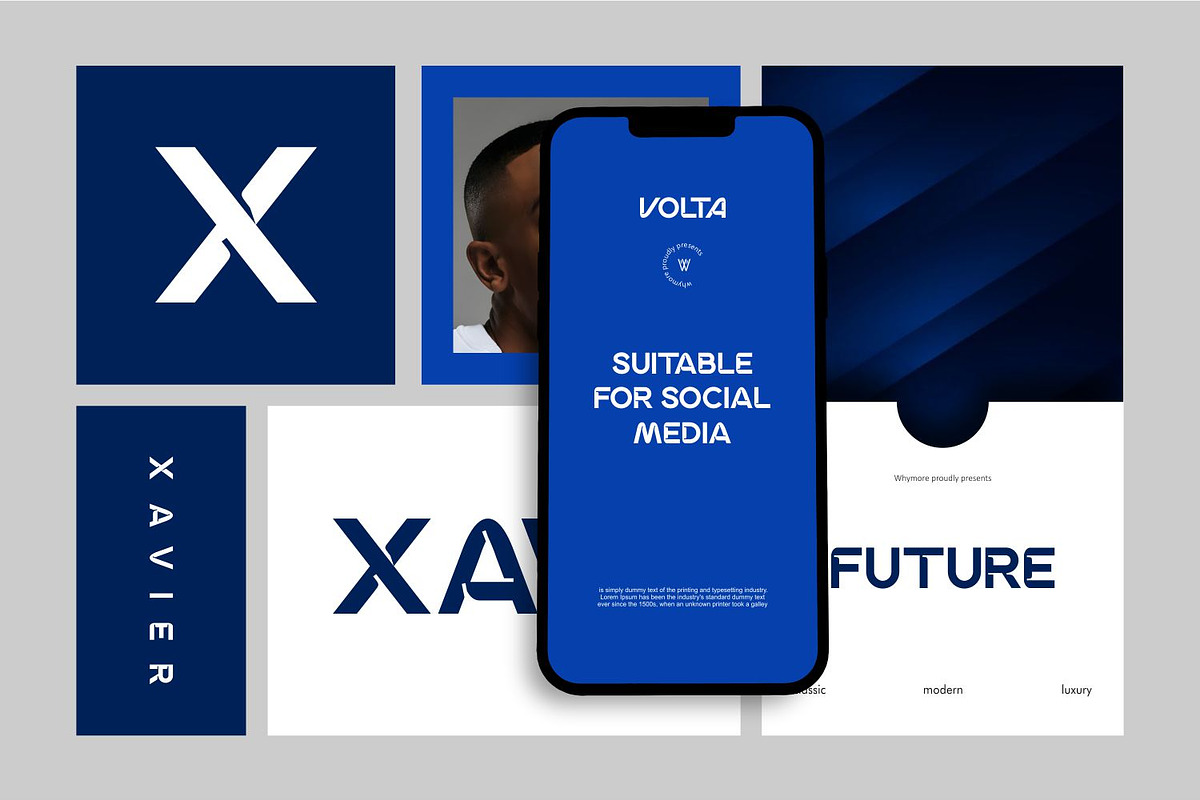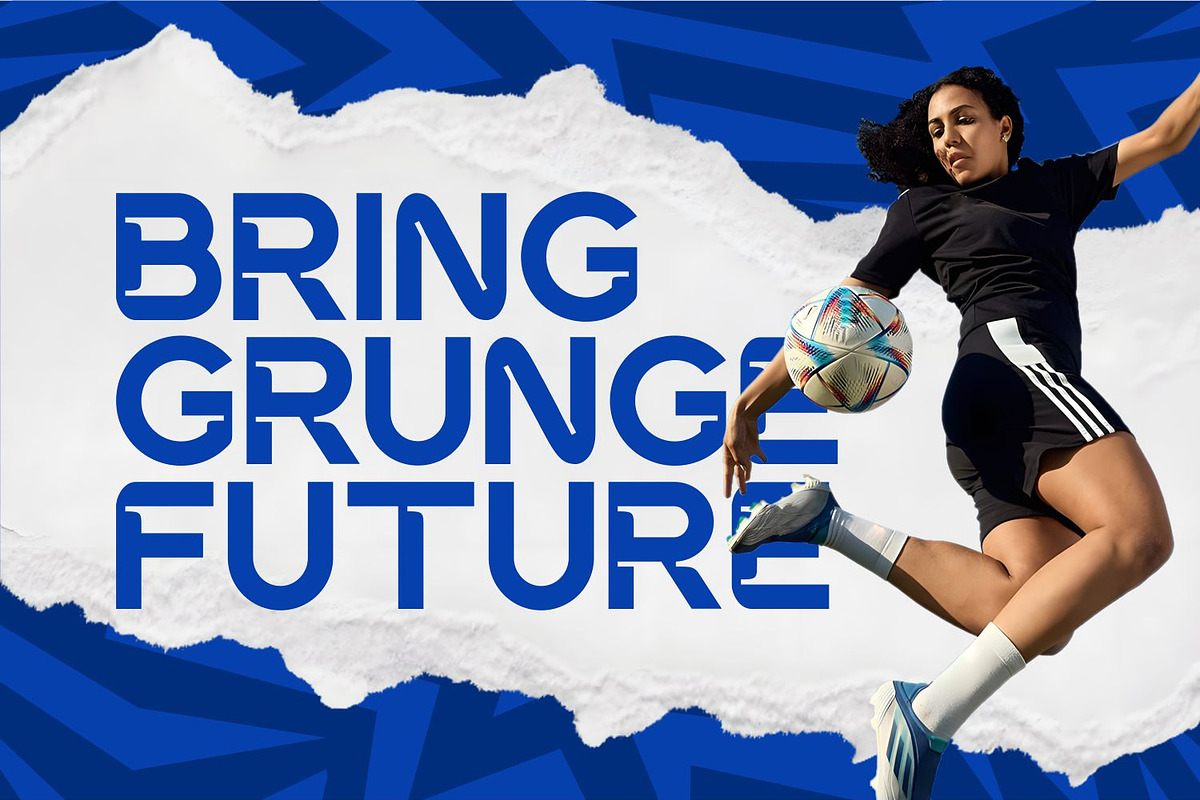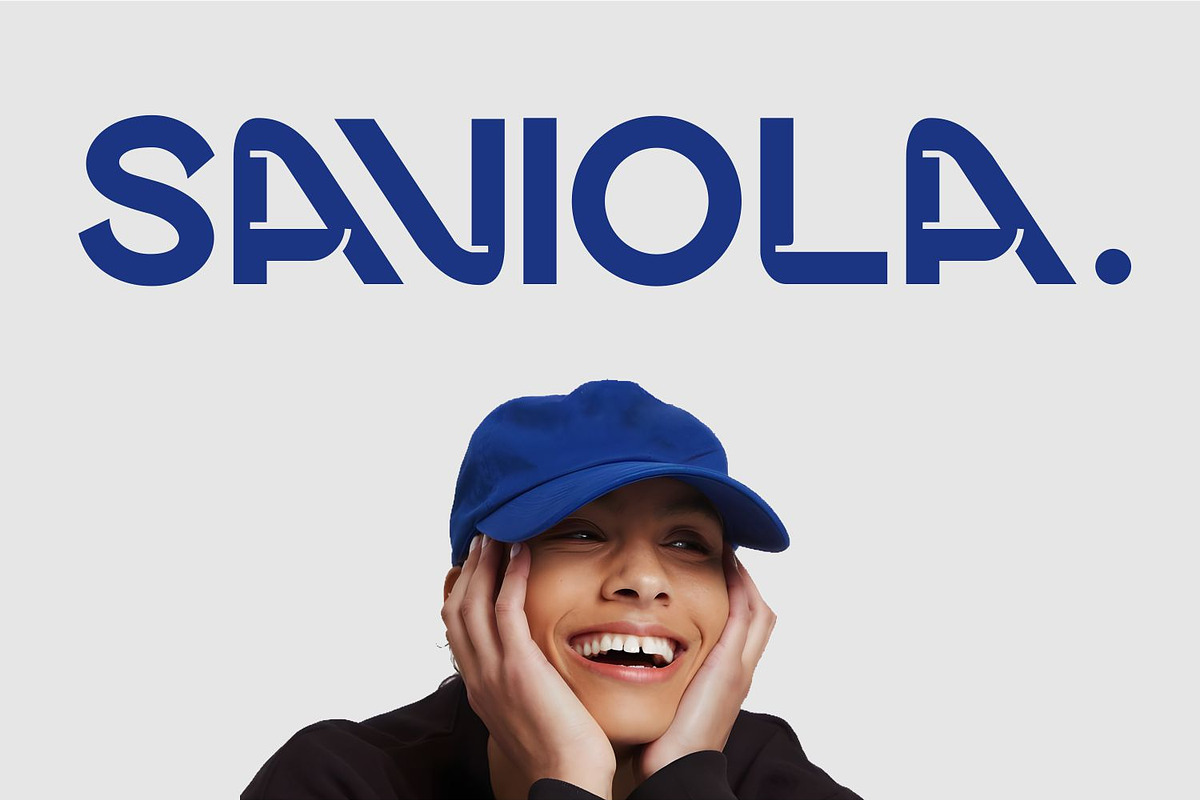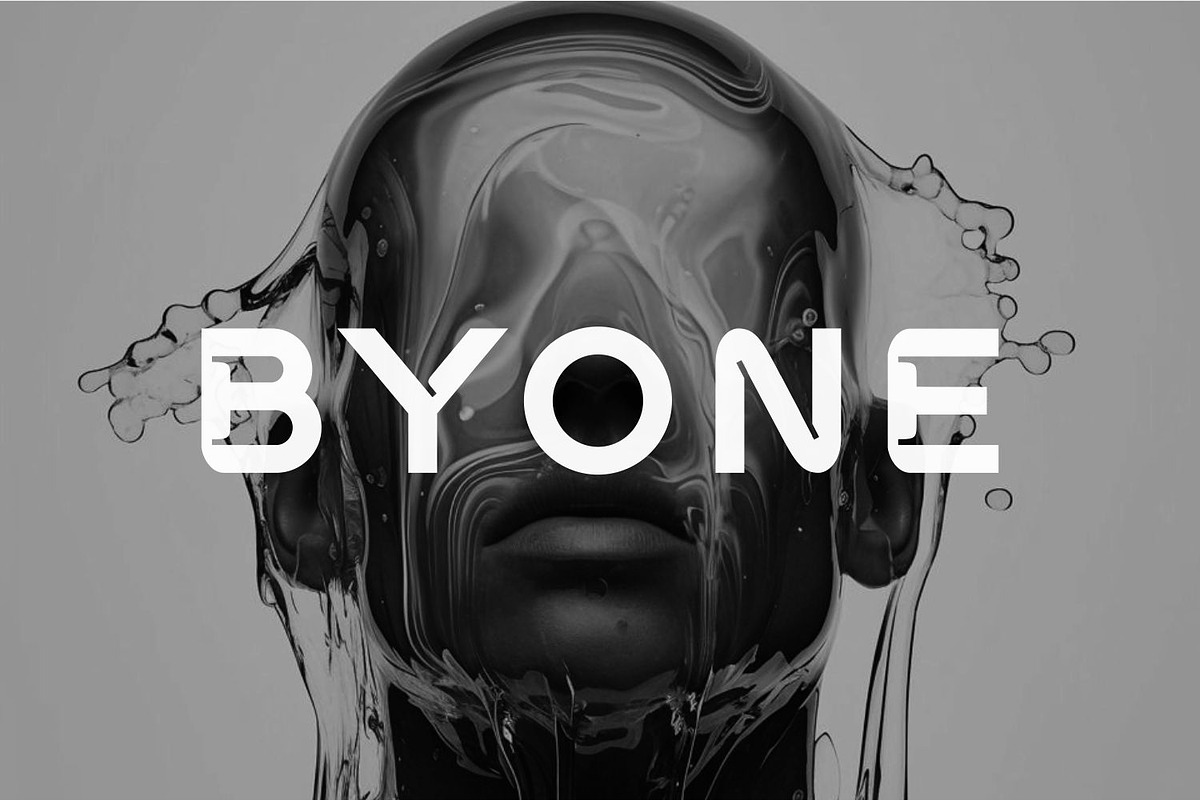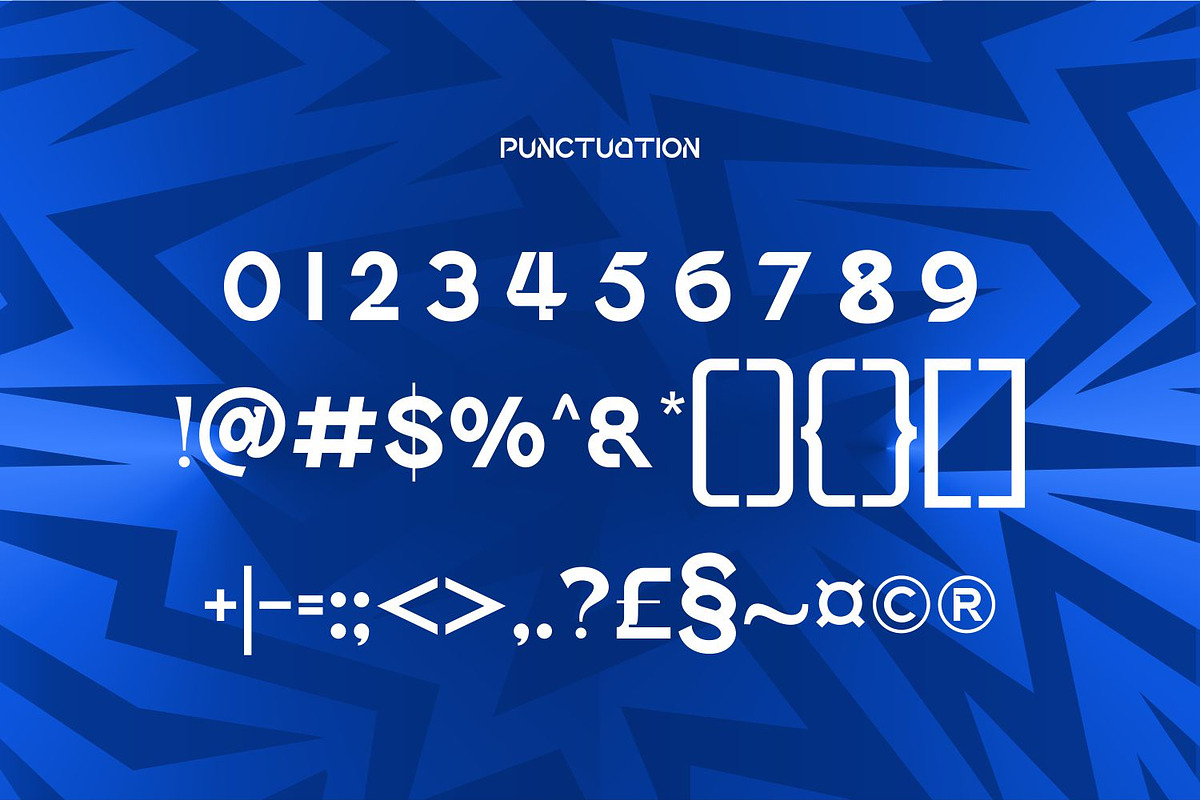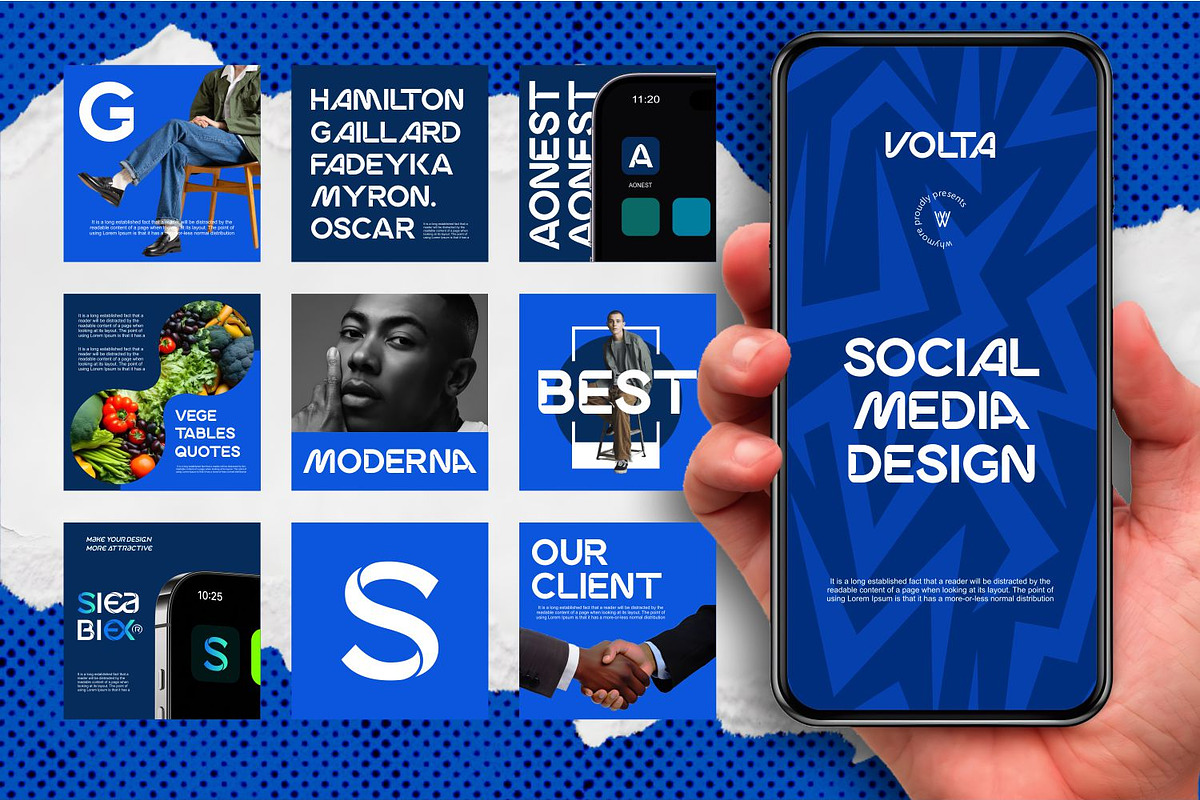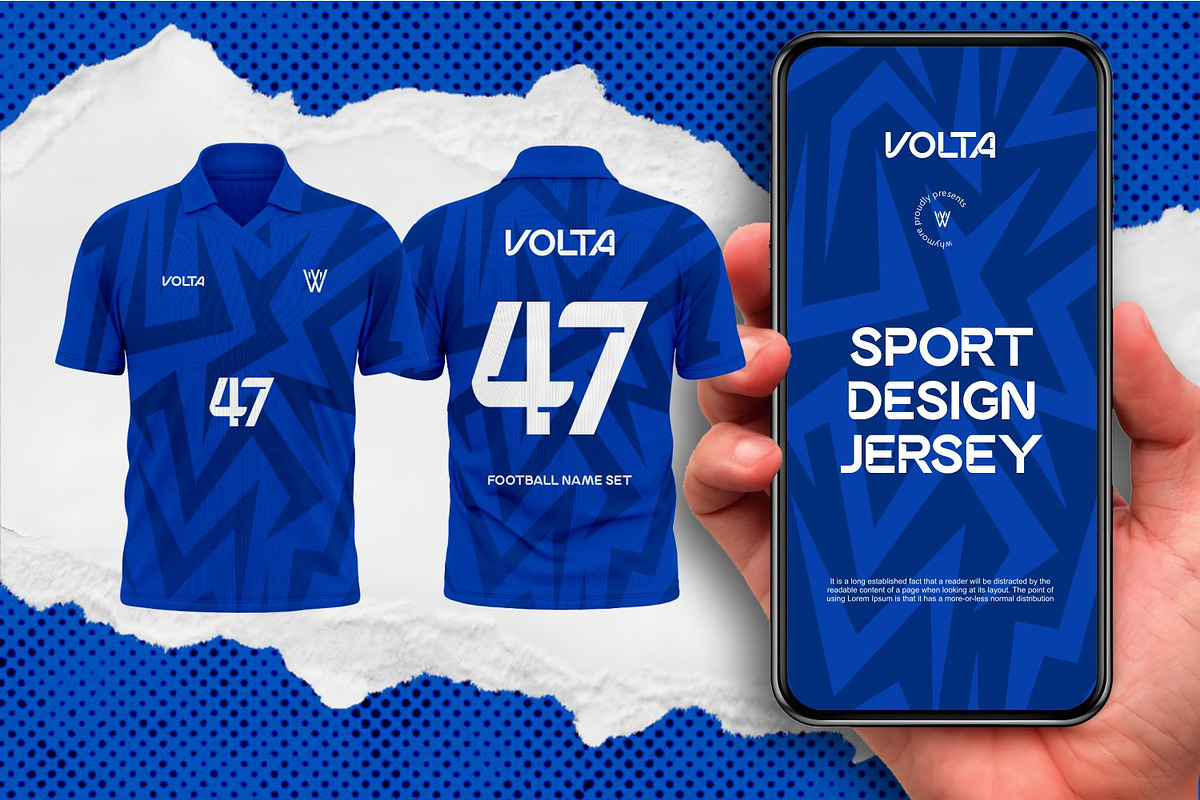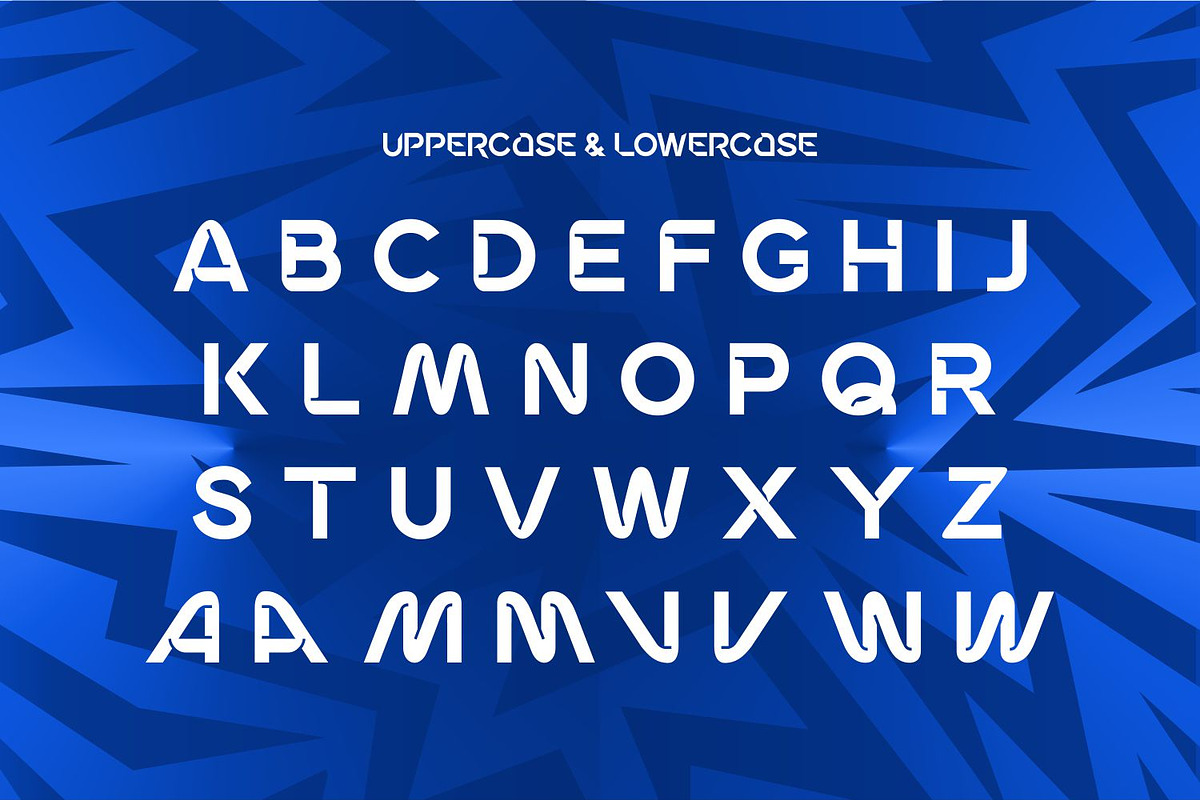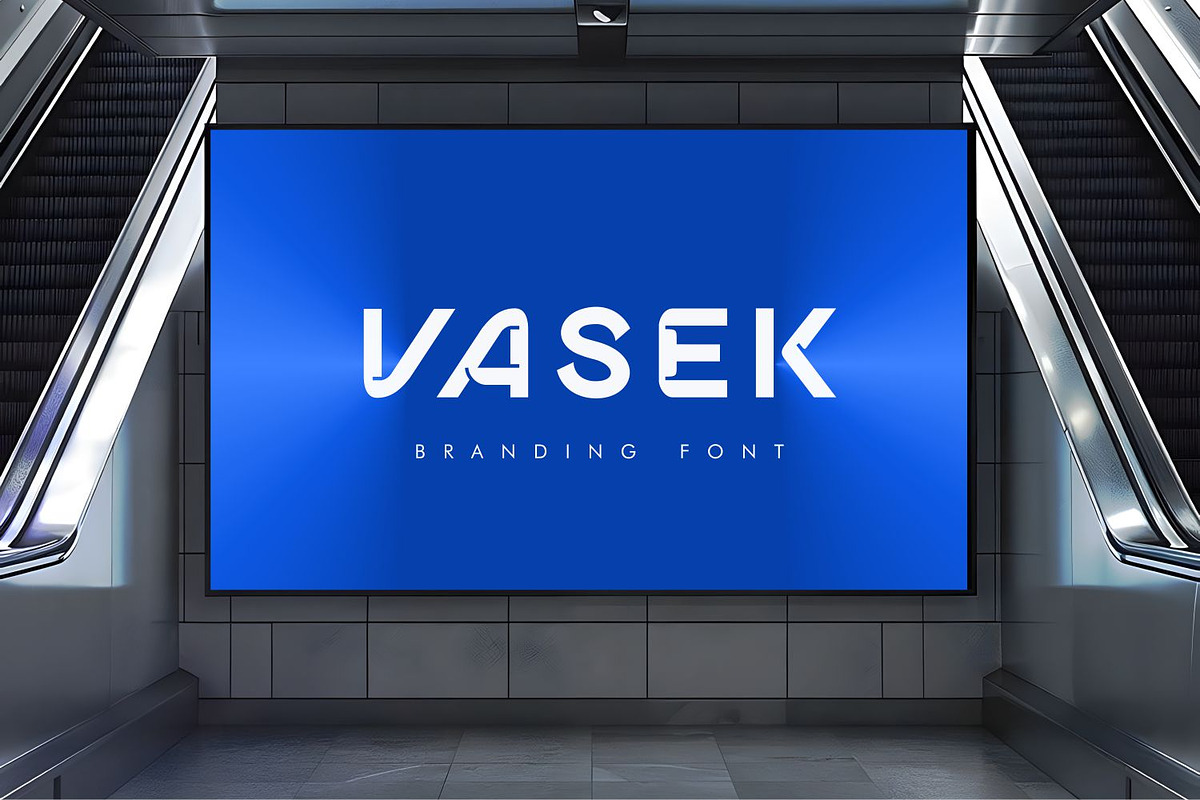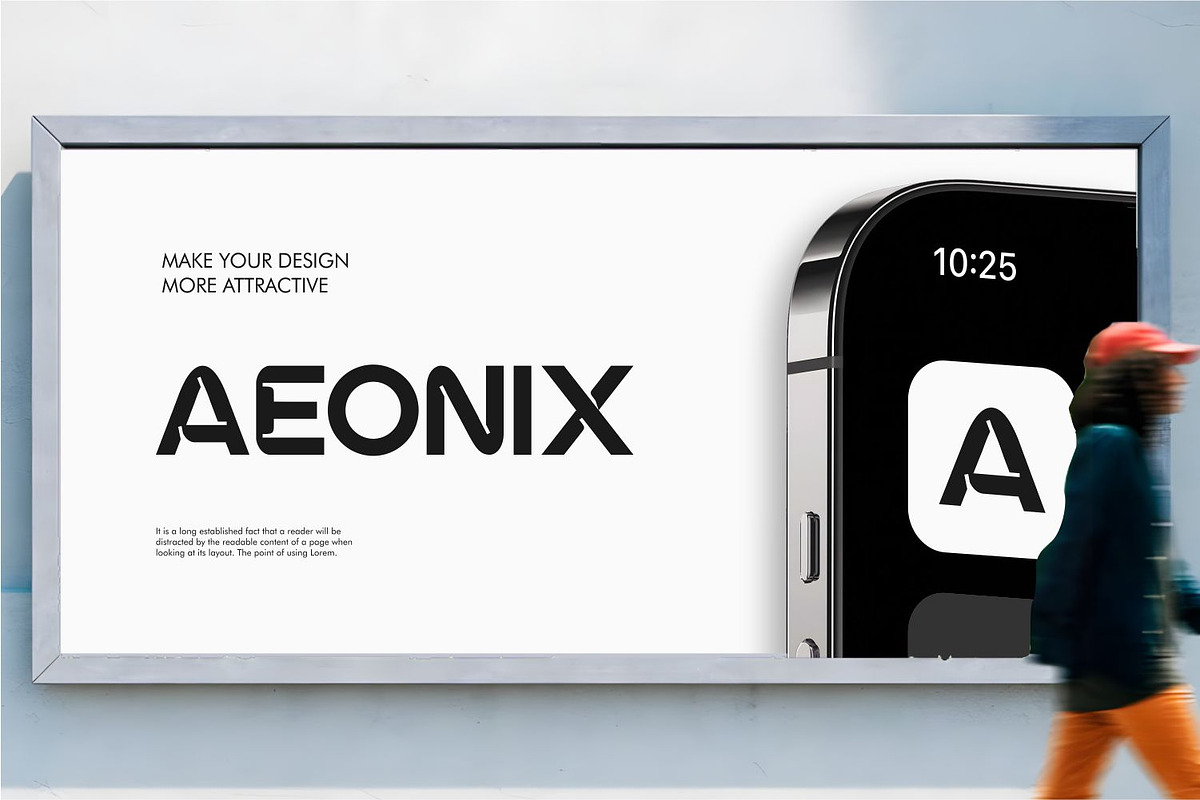
Volta – Bold Condensed Futuristic Sp
VOLTA is a bold, condensed, modern font with futuristic, sporty, and grunge touches. Designed for those who want their designs to look strong, professional, and stand out.
✅ Ideal For:
Modern logos & branding
Social media content & YouTube thumbnails
Promotional posters, mockups, and presentations